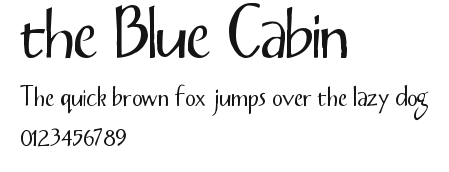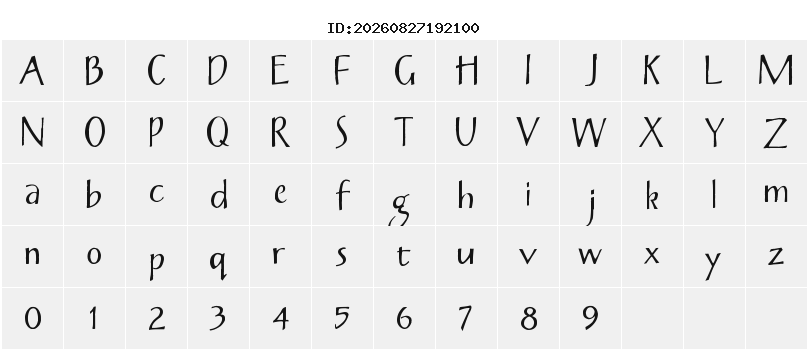
the Blue Cabin Preview
• Font Name: the Blue Cabin
• Full Font Name: the Blue Cabin
About the Blue Cabin.ttf
the Blue Cabin.ttf is a modern, elegant sans-serif font designed for ultimate readability and visual harmony. Perfect for branding, headlines, web design, and print materials.